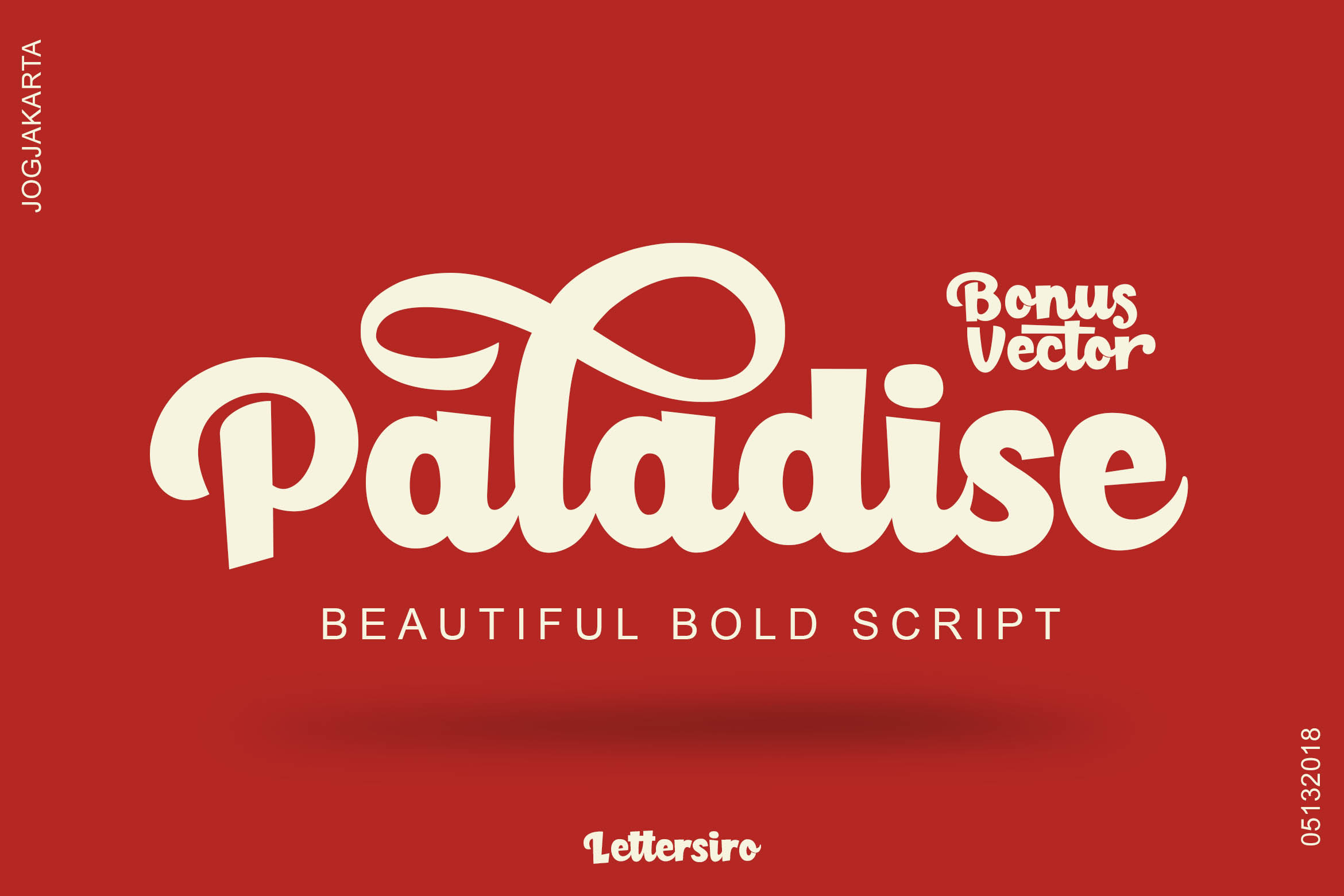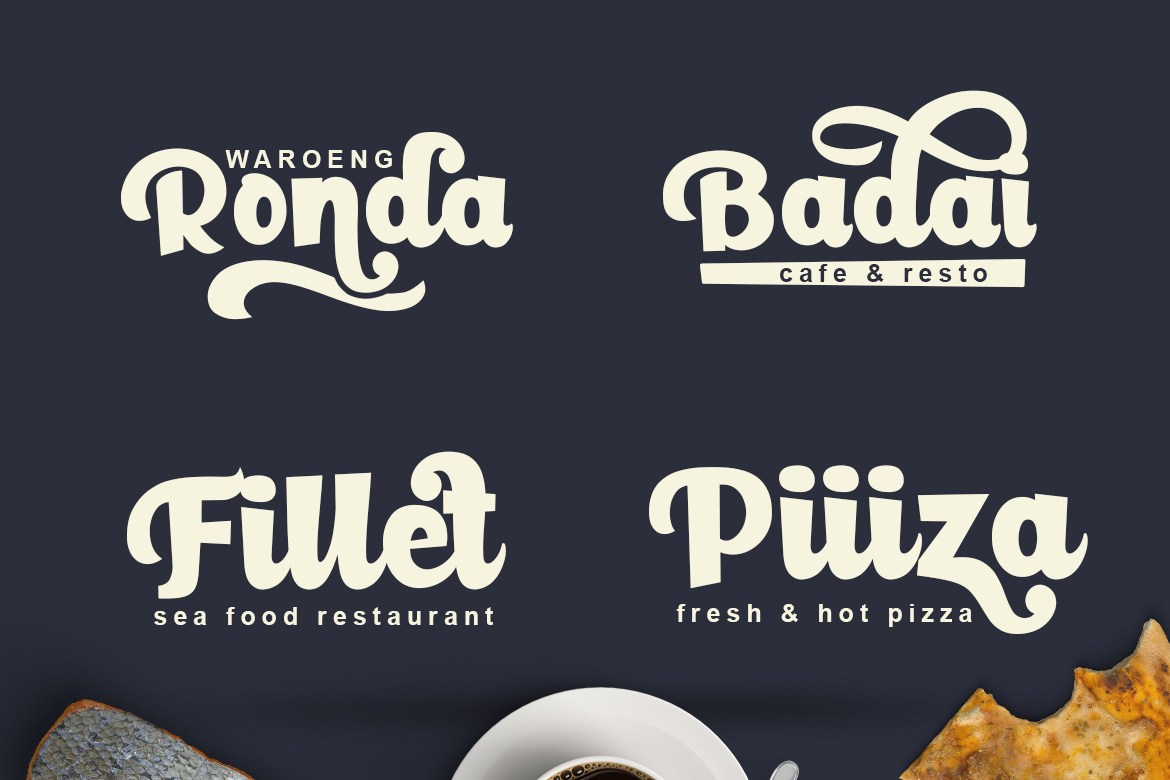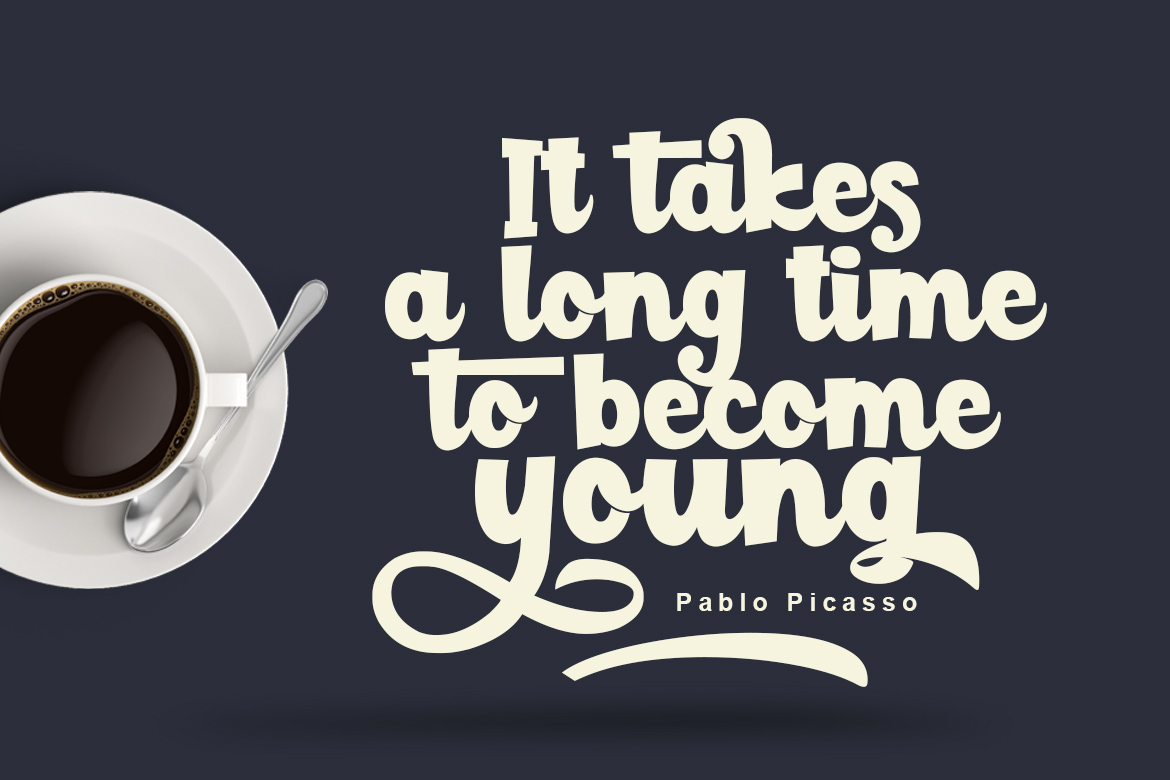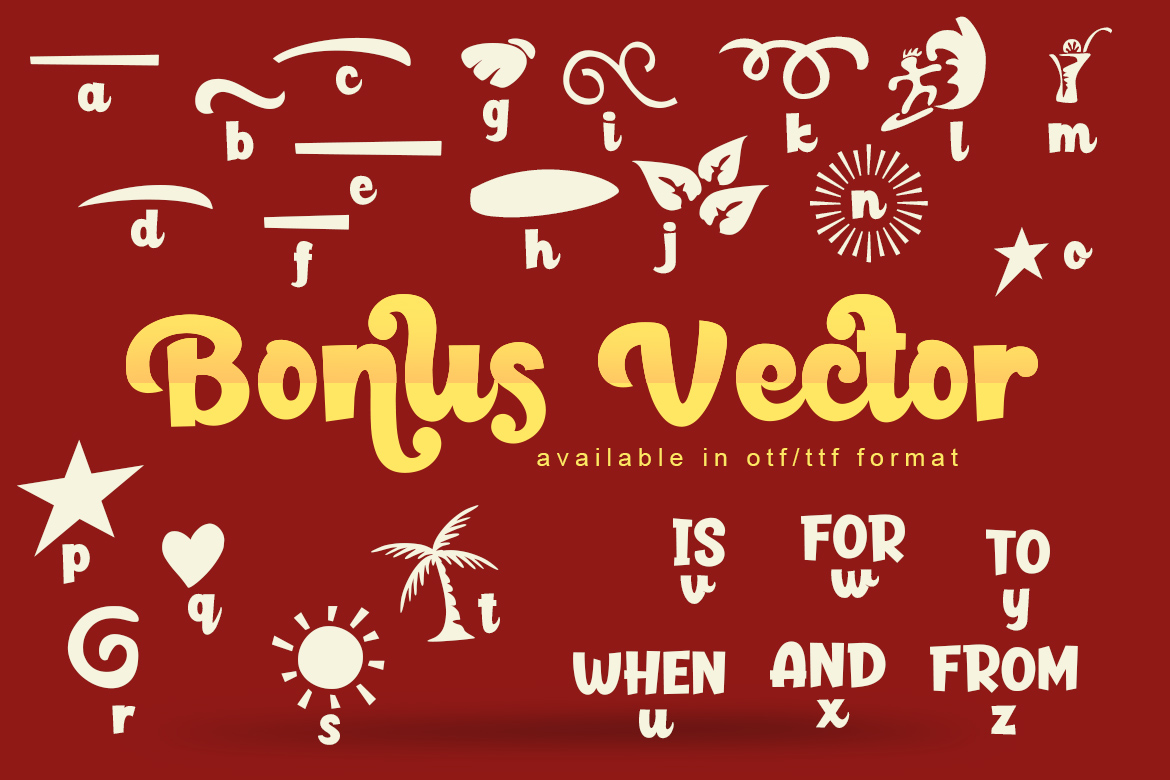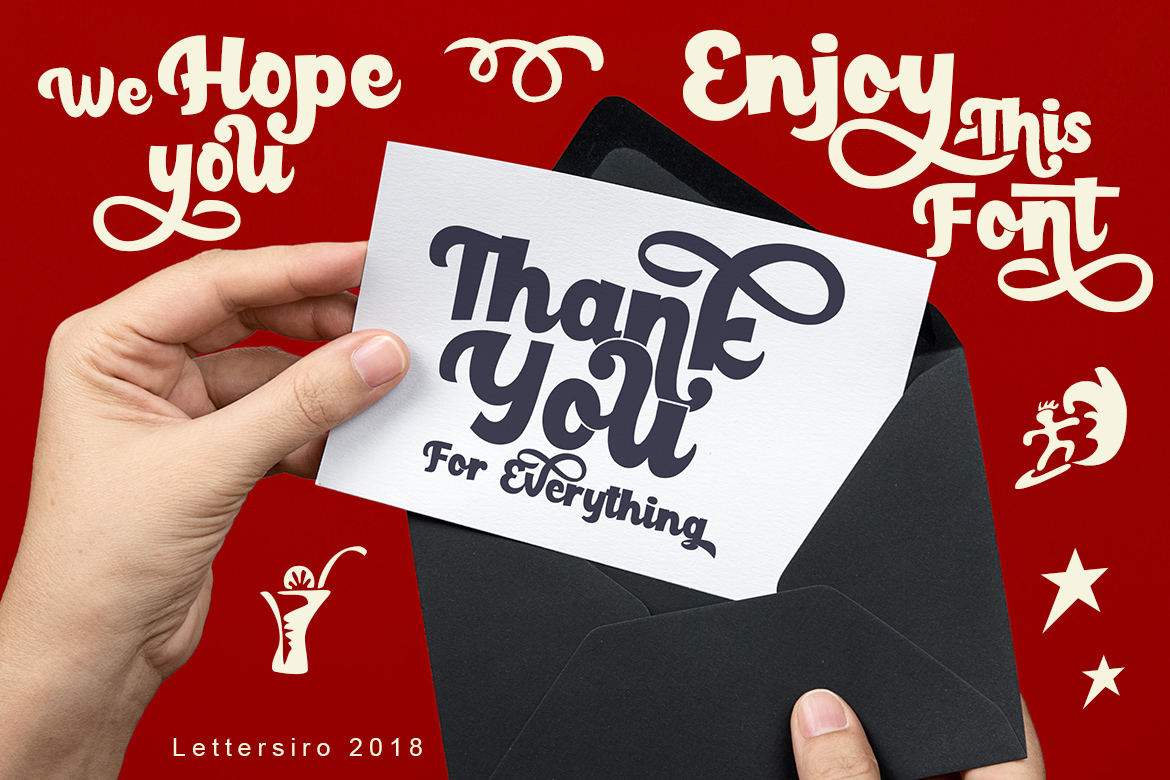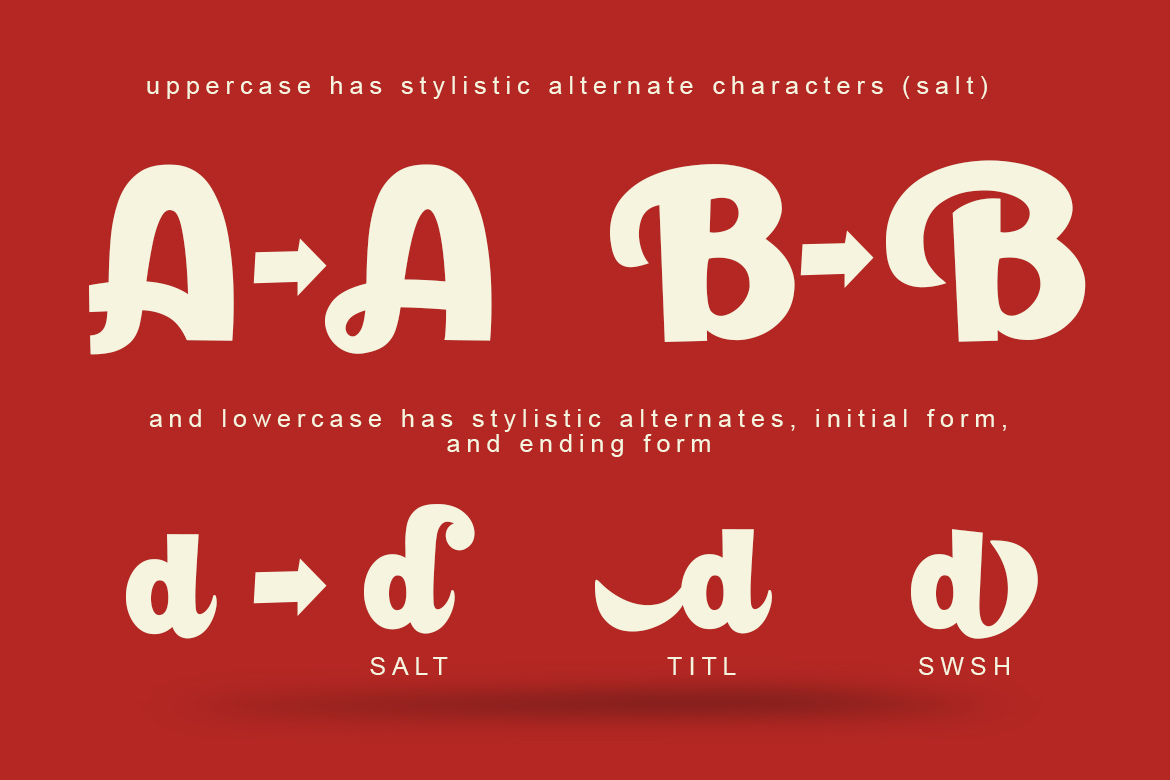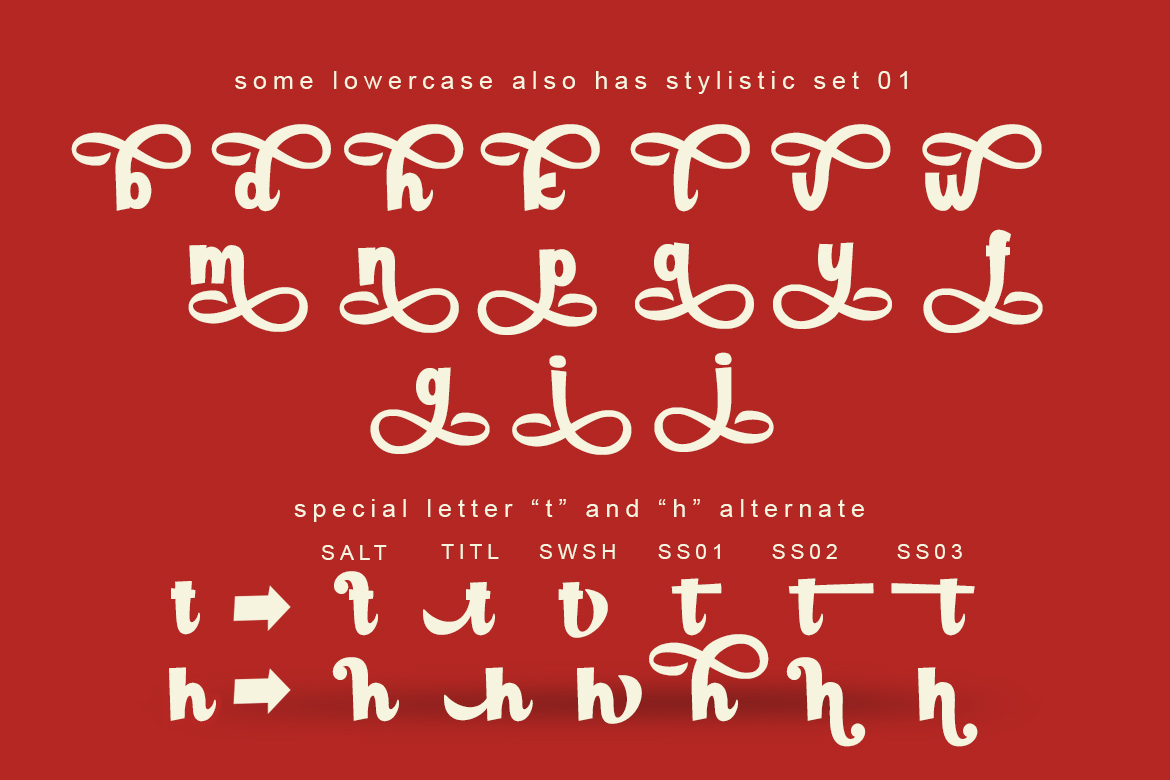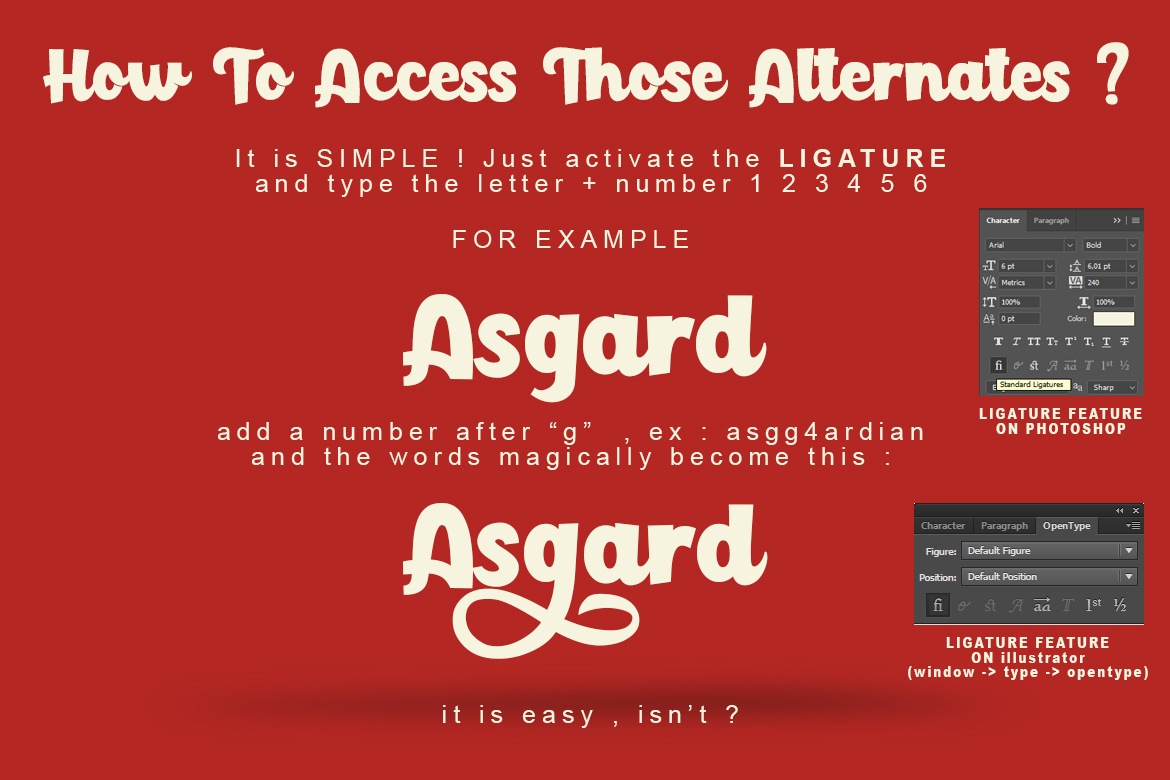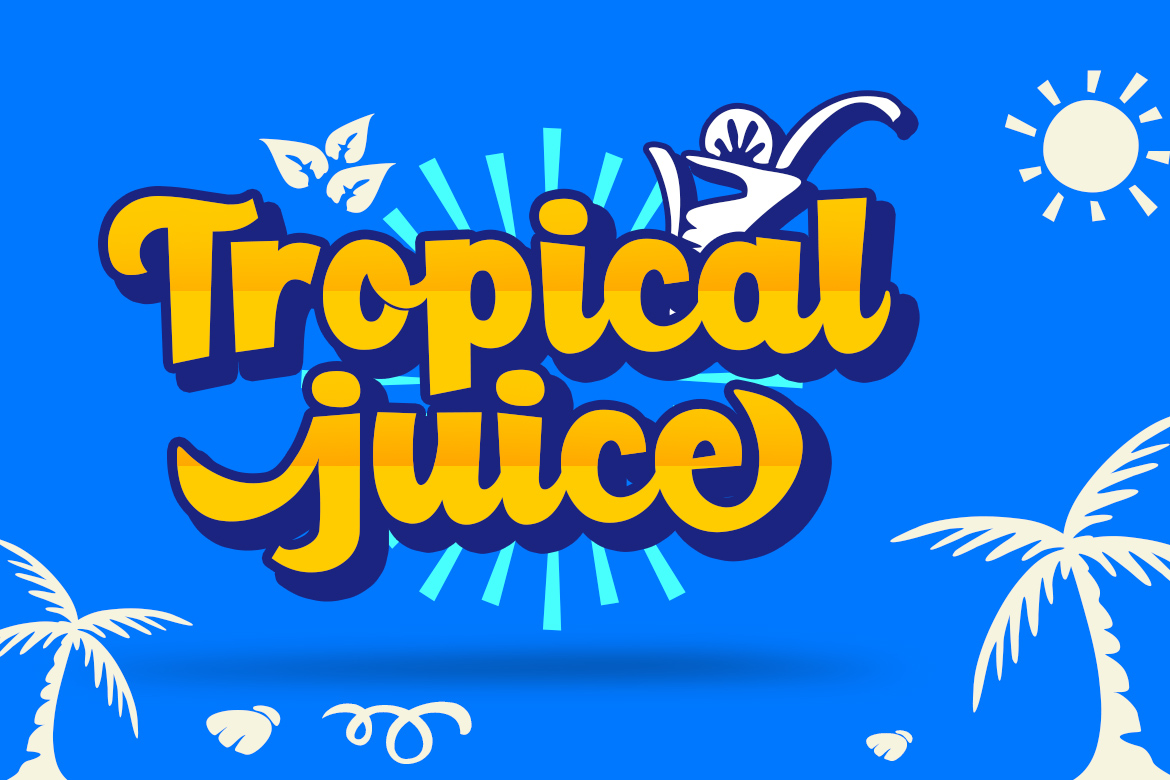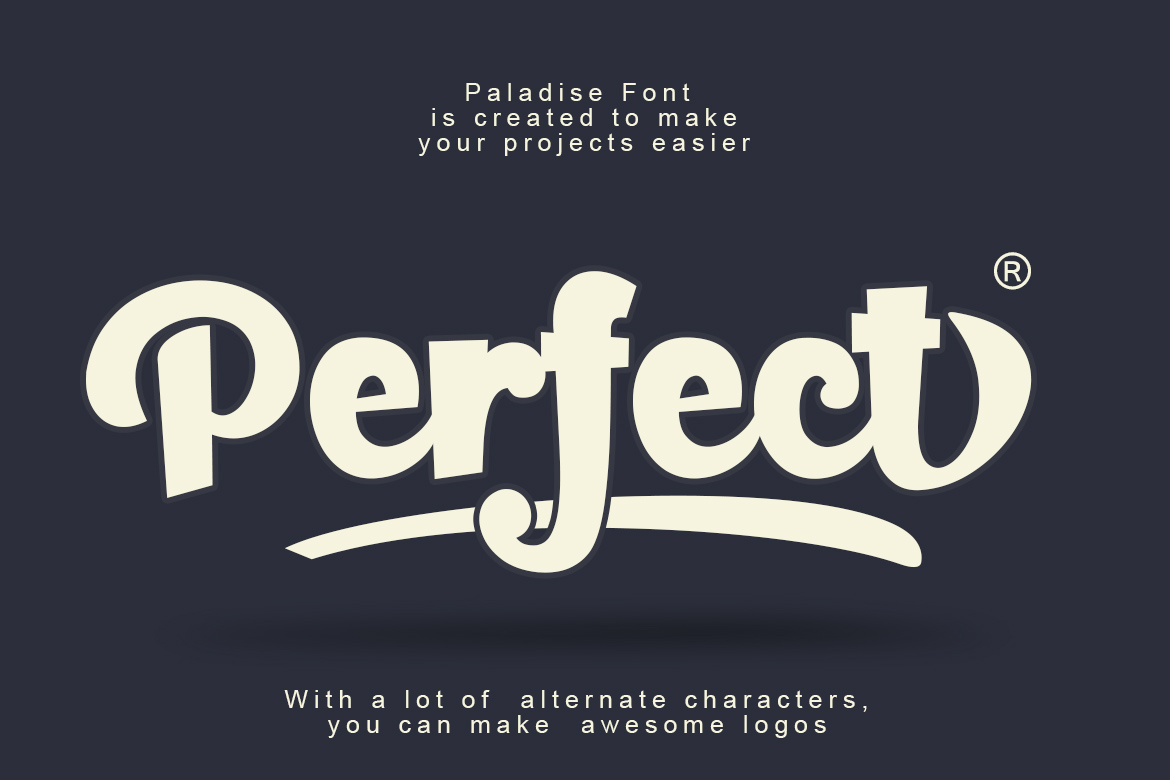
Paladise Font
About Paladise Font
Paladise is a playful yet cool font; this display script font comes in a bouncy style and can give your designs an instant logotype feel. With 26 bonus vectors, this font is ready to be used in all your projects!